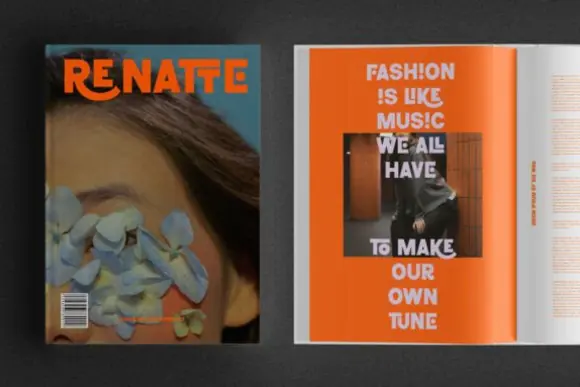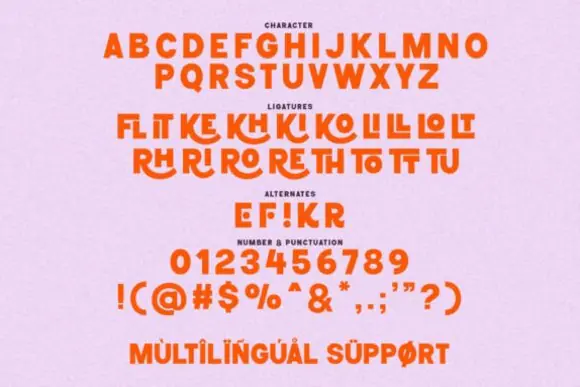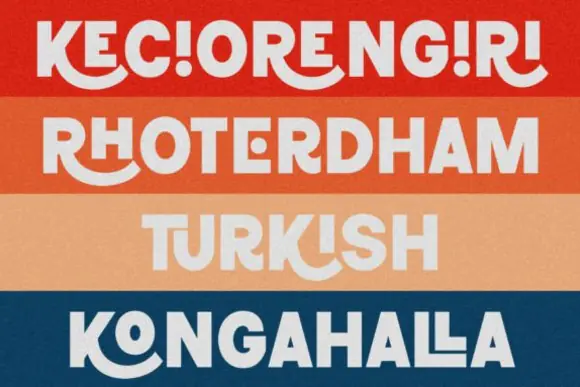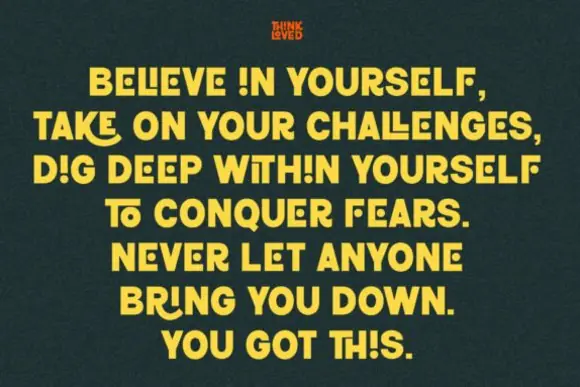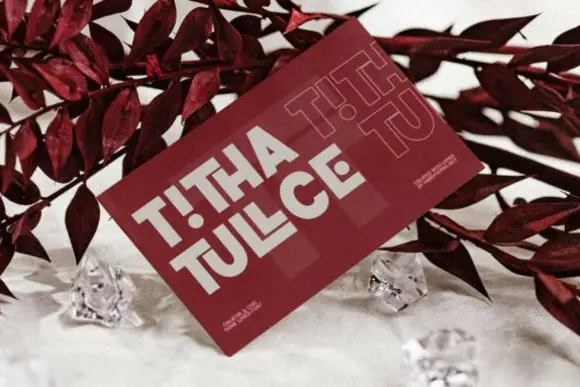
Think Loved Bold Sans Serif Font – Ultra-Heavy Geometric Typeface with Creative Ligatures for Streetwear, Digital Advertising, Modern Branding, Posters, Headlines & High-Impact Graphic Designs
Create bold, modern, and attention-grabbing designs with Think Loved Font, a powerful bold sans serif typeface built for strong visual impact. With its ultra-heavy weight, minimalist geometric shapes, playful circular cutouts, and creative alternate discretionary ligatures, this font transforms ordinary text into striking graphic typography.
Think Loved Font is perfect for contemporary streetwear designs, high-contrast digital advertising, modern brand identities, posters, headlines, logos, social media graphics, apparel designs, packaging, album covers, event flyers, stickers, and bold promotional visuals. Its strong geometric structure gives your designs a clean and modern foundation, while the interlocking characters and unique cutout details add personality, movement, and creative edge.
This font is especially useful for designers, fashion brands, streetwear sellers, digital marketers, print-on-demand creators, branding specialists, and creative businesses that want typography with a bold, stylish, and unforgettable presence. Whether you are designing a modern clothing label, a powerful poster, a striking ad campaign, or a standout logo, Think Loved Font helps your message feel confident, fresh, and visually memorable.
Streetwear designs, modern branding, logos, digital advertising, posters, headlines, apparel graphics, t-shirts, hoodies, social media posts, packaging, album covers, event flyers, stickers, product labels, bold quote designs, and high-impact promotional materials.
Key Features
• Ultra-heavy bold sans serif font style
• Minimalist geometric letterforms
• Creative alternate discretionary ligatures
• Playful circular cutouts and interlocking characters
• Perfect for headlines and graphic typography
• Great for streetwear, branding, and advertising designs
• Designed for bold, modern, attention-focused visuals